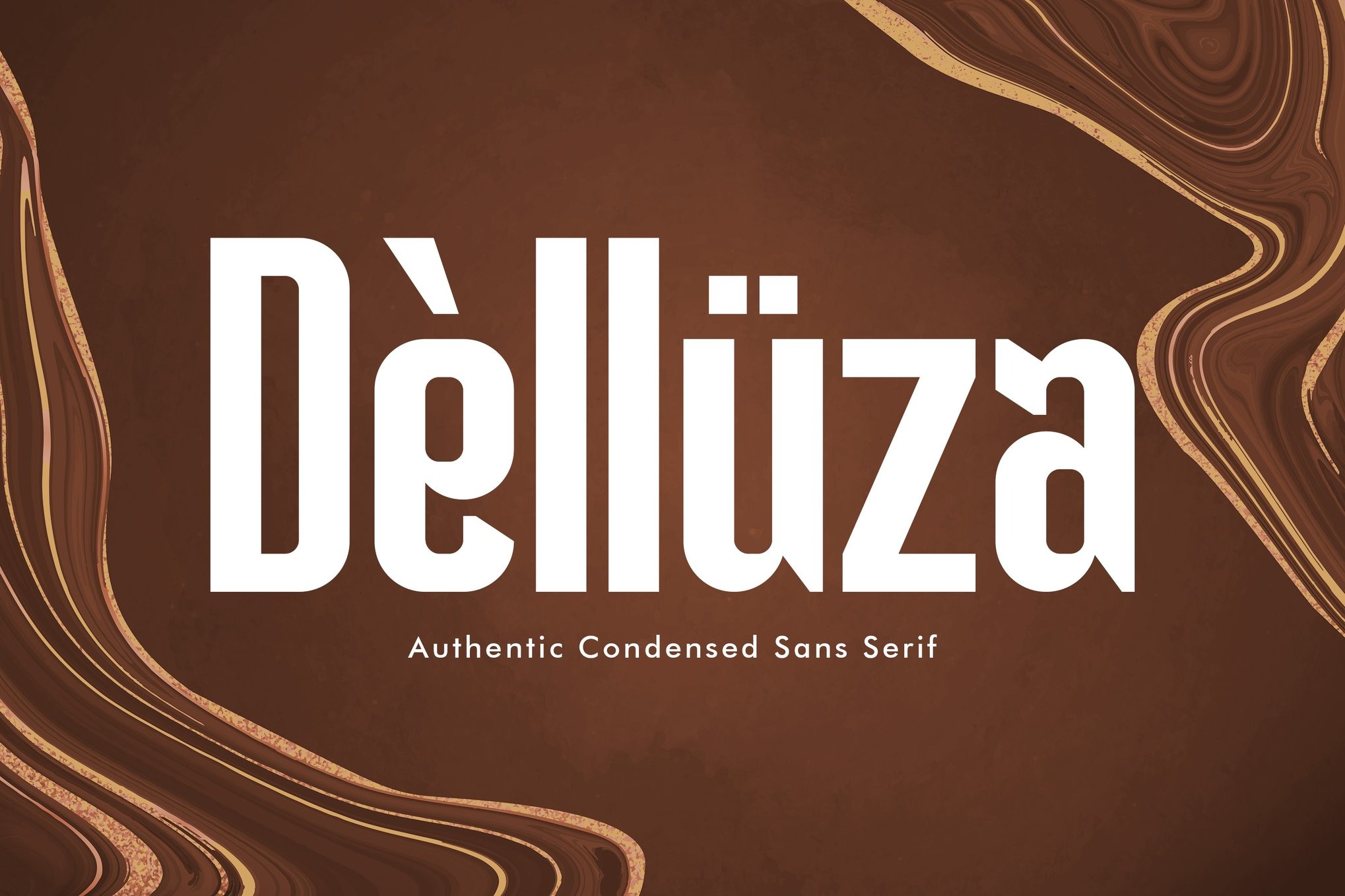
Delluza Font
Delluza Font is a stylish typeface that enhances visual appeal and works effortlessly in many design contexts. Delluza – Authentic Condensed Sans with strong and challenging nuances. very suitable for the title, typography, magazines, brochures, packaging and much more for your design needs, making your designs more modern and professional